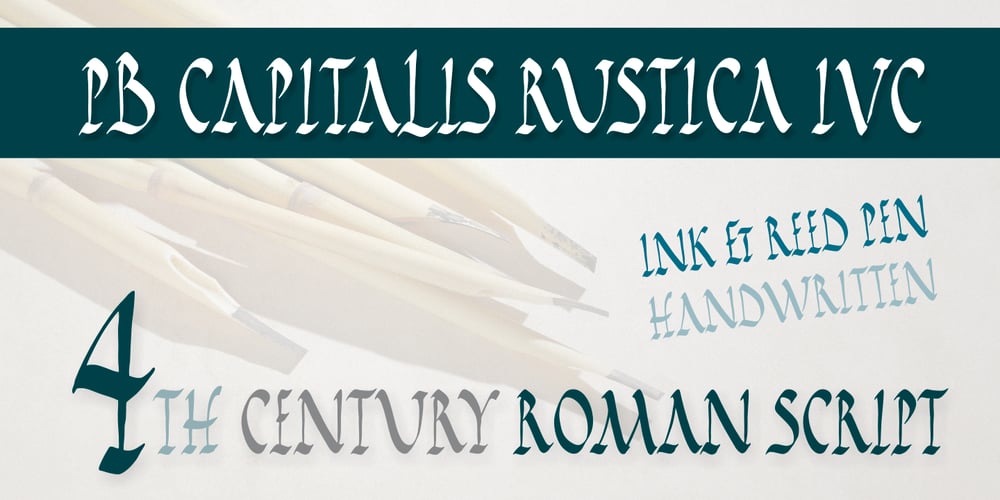
PB Capitalis Rustica IVc
PB Capitalis Rustica IVc font
PB Capitalis Rustica IVc Font Family was designed by Paweł Burgiel and published by Paweł Burgiel. PB Capitalis Rustica IVc contains 1 styles and family package options. PB Capitalis Rustica IVc is a font face designed for imitate latin writing style found in manuscripts from 1st to 9th century. All characters are handwritten by use ink and reed pen (calamus), scanned, digitized and optimized for best quality without lost its handwritten visual appearance. Character set support codepages: 1250 Central (Eastern) European, 1252 Western (ANSI), 1254 Turkish, 1257 Baltic. Include also additional characters for Cornish, Danish, Dutch and Welsh language, spaces (M/1, M/2, M/3, M/4, M/6, thin, hair, zero width space etc.) and historical characters (overlined Roman numerals, I-longa, historical ligatures for “nomina sacra” and “notae communes”). OpenType TrueType TTF (.ttf) font file include installed OpenType features: Access All Alternates, Localized Forms, Fractions, Ordinals, Superscript, Tabular Figures, Proportional Figures, Stylistic Alternates, Stylistic Set 1, Historical Forms, Historical Ligatures. Include also kerning as single ‘kern’ table for maximum possible backwards compatibility with older software. Historical ligatures for “nomina sacra” and “notae communes” are mapped to Private Use Area codepoints. Use of OpenType features to get historical characters: ïTo get “I-longa” use Stylistic Alternates for: “I”(U+0049), “i”(U+0069), “dotless i”(U+0131). ïTo get “nomina sacra” use Historical Ligatures and write uppercase letters: DS for: “Deus”, DMS or DNS for: “Dominus” EPS for: “Episcopus”, IHS for: “Iesus”, PBR for: “Presbiter”, SCS for: “Sanctus”, SPS for: “Spiritus”, XPS for: “Christus”. ïTo get “notae communes” use Historical Ligatures and write: B(U+0042) + “middle dot”(U+00B7) for: “-BUS”, Q(U+0051) + “middle dot”(U+00B7) for: “-QUE”. ïTo get “scriptio continua” (writing without words separation) use Historical Forms (regular spaces are replaced by zero width spaces between words). ïTo get “middle dot” for separate words use Stylistic Set 1 (regular spaces are replaced by middle dot between words).